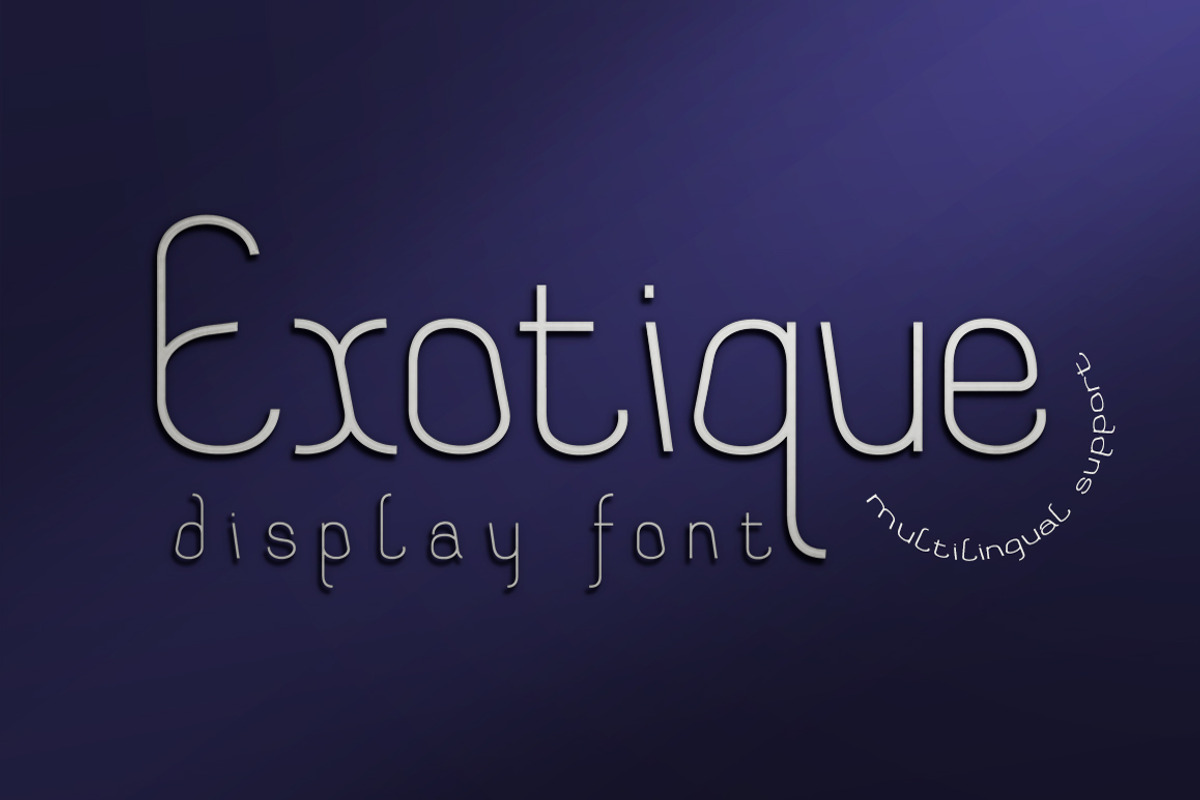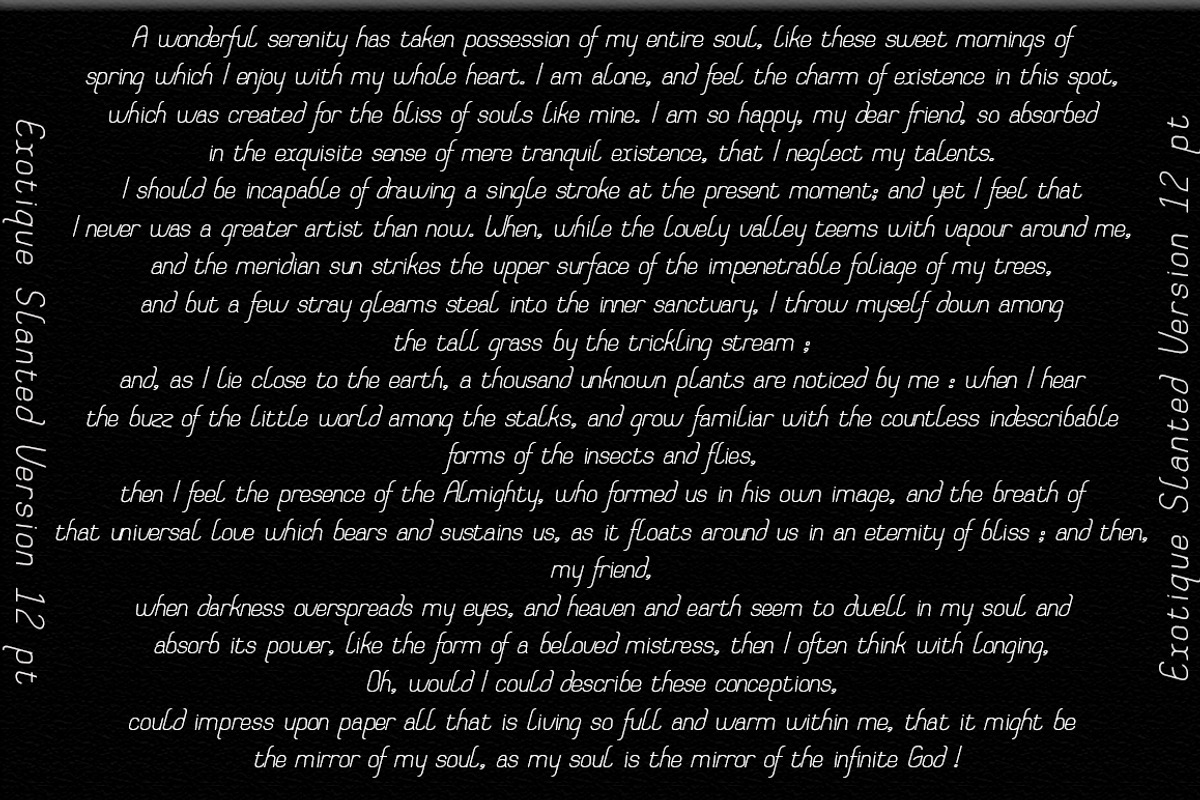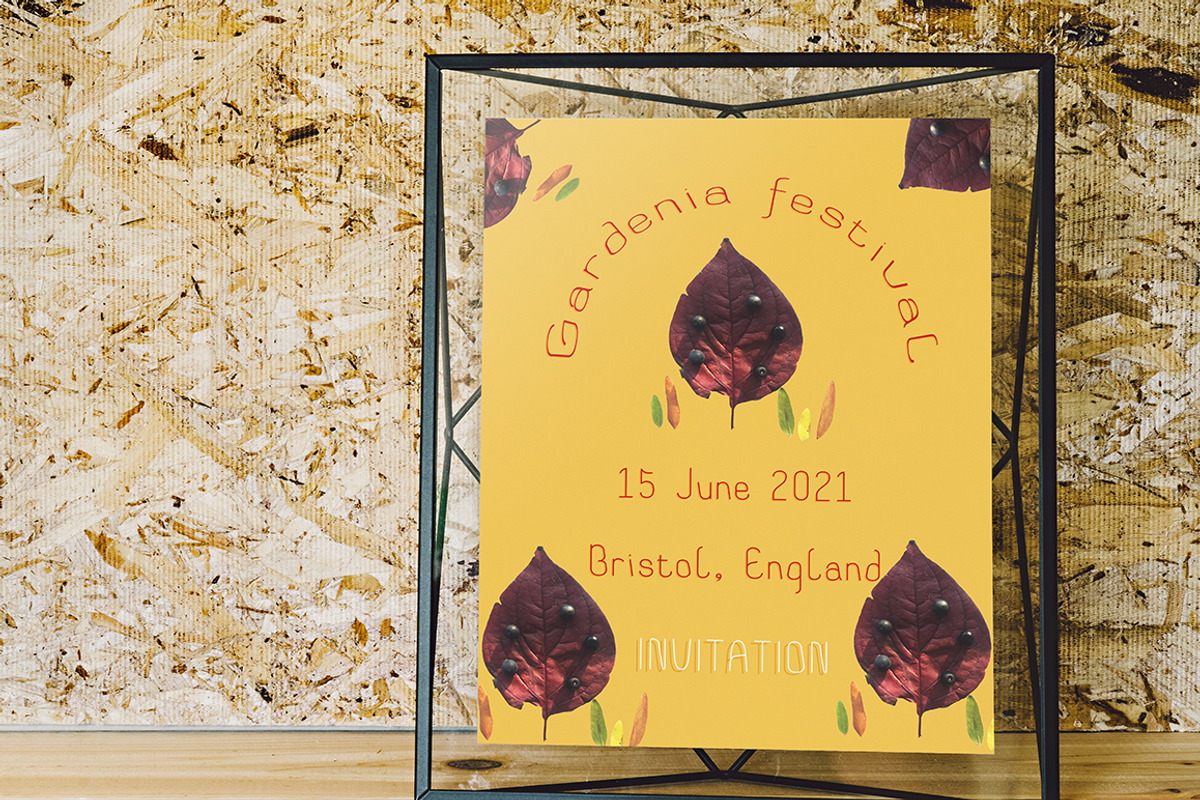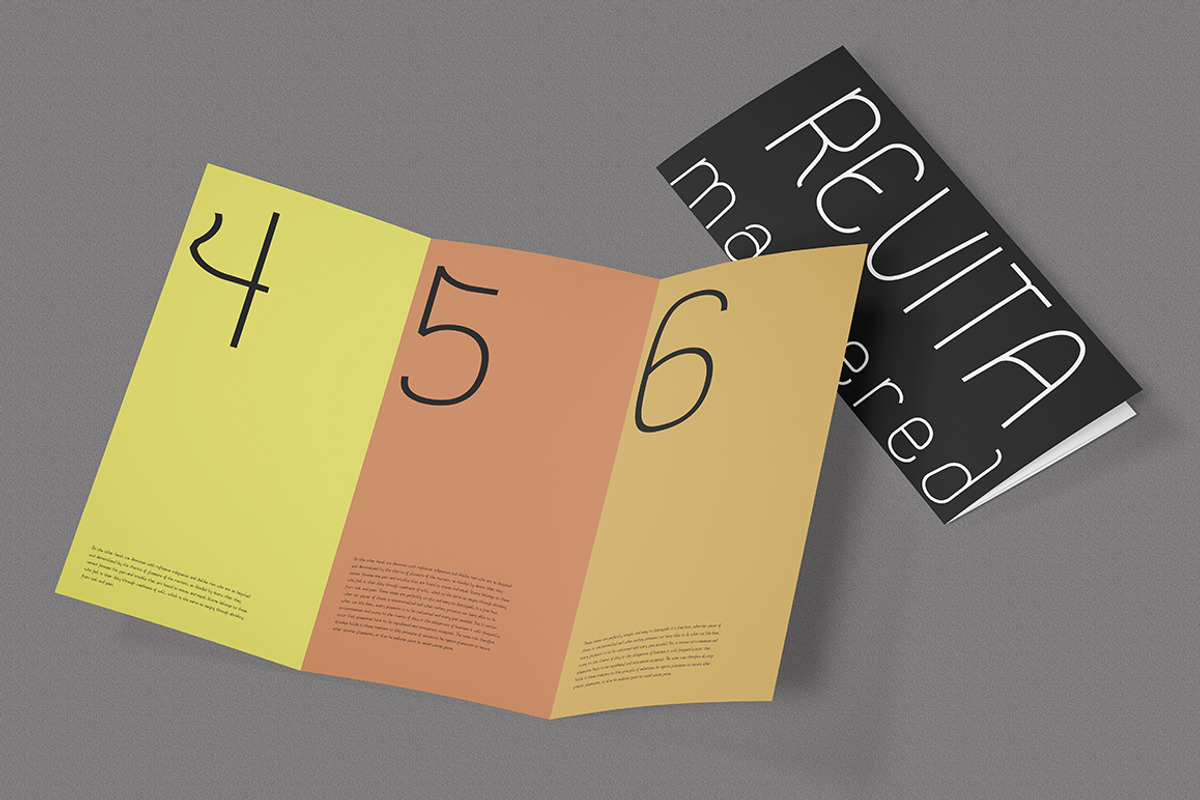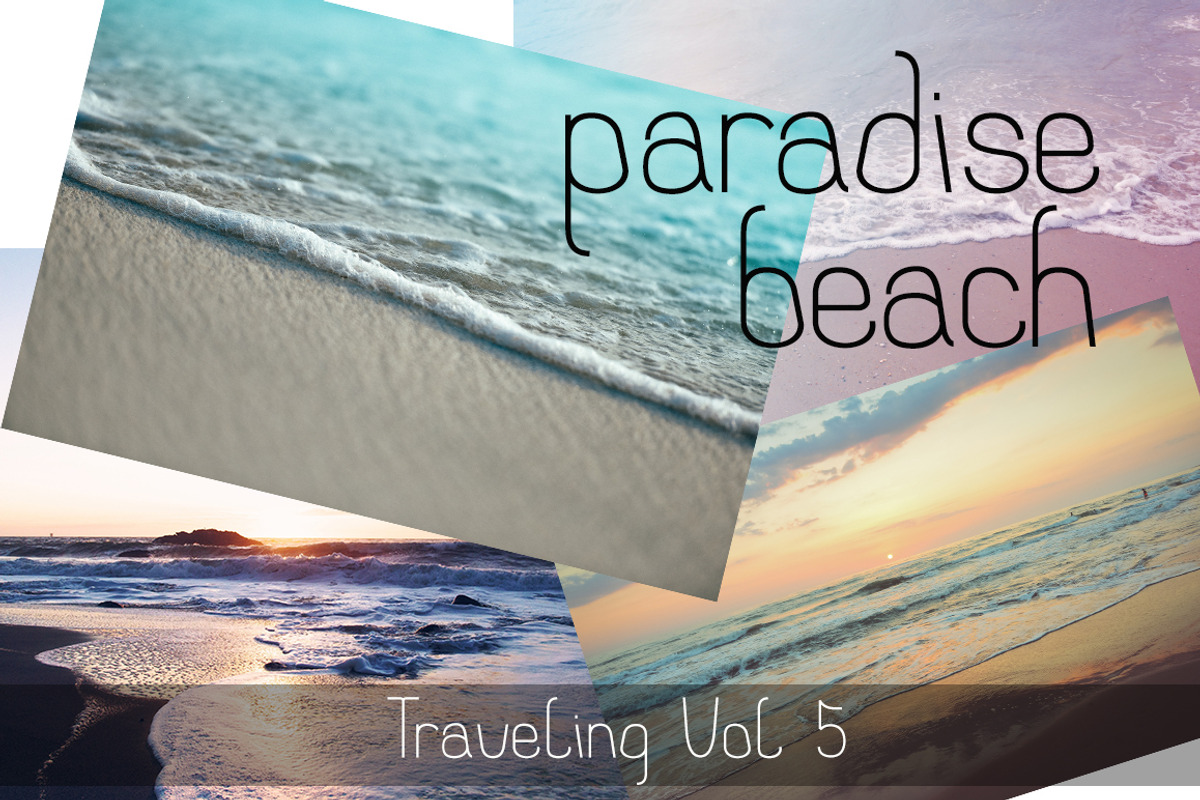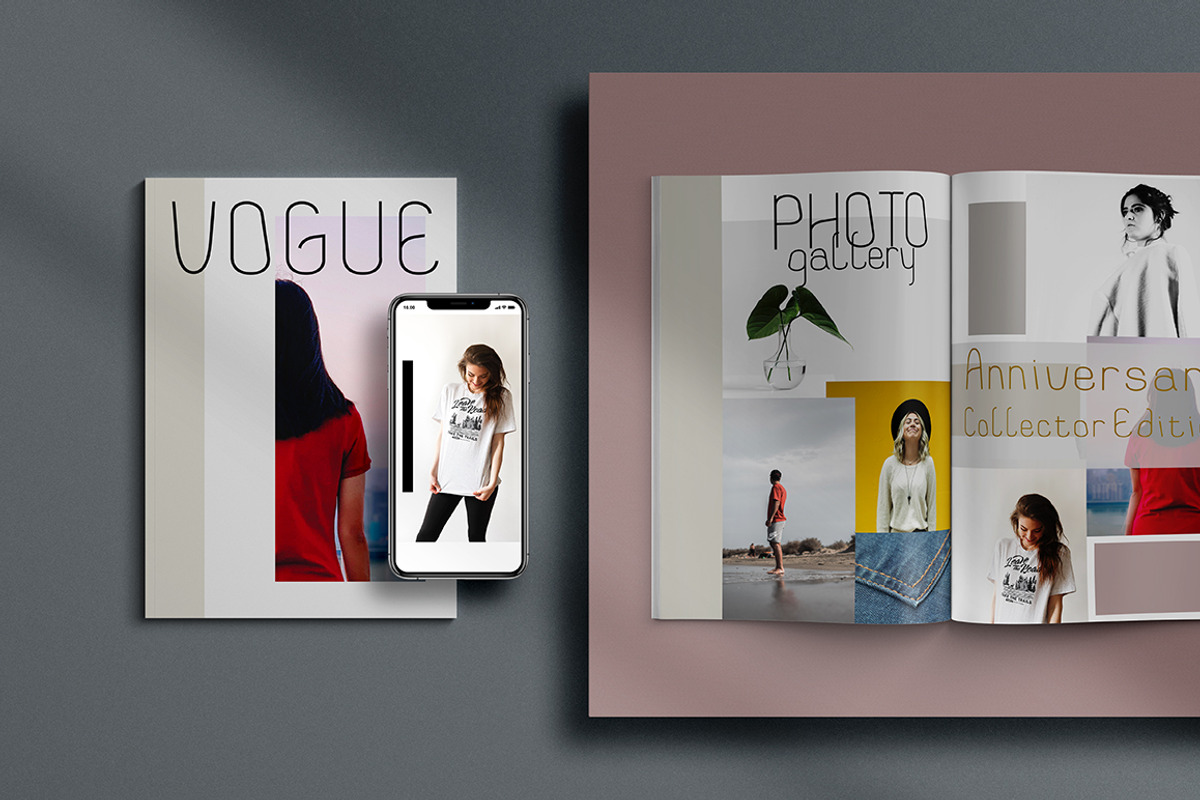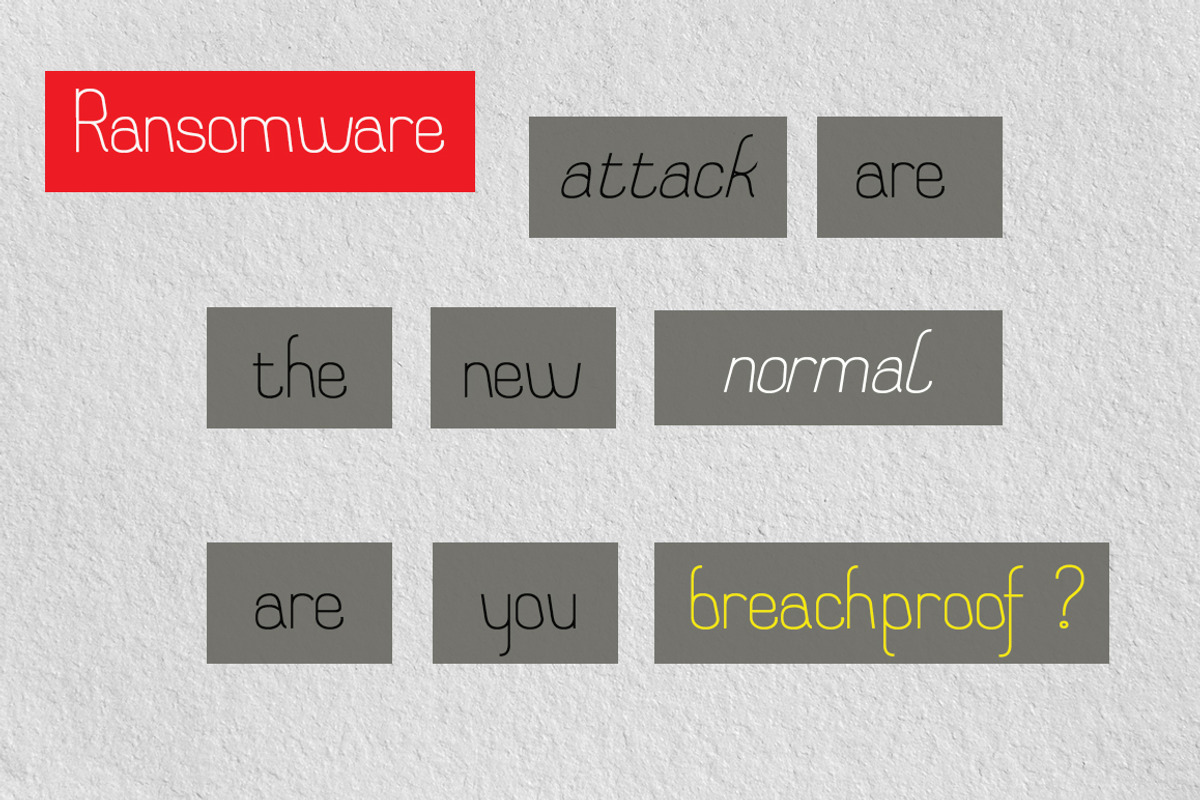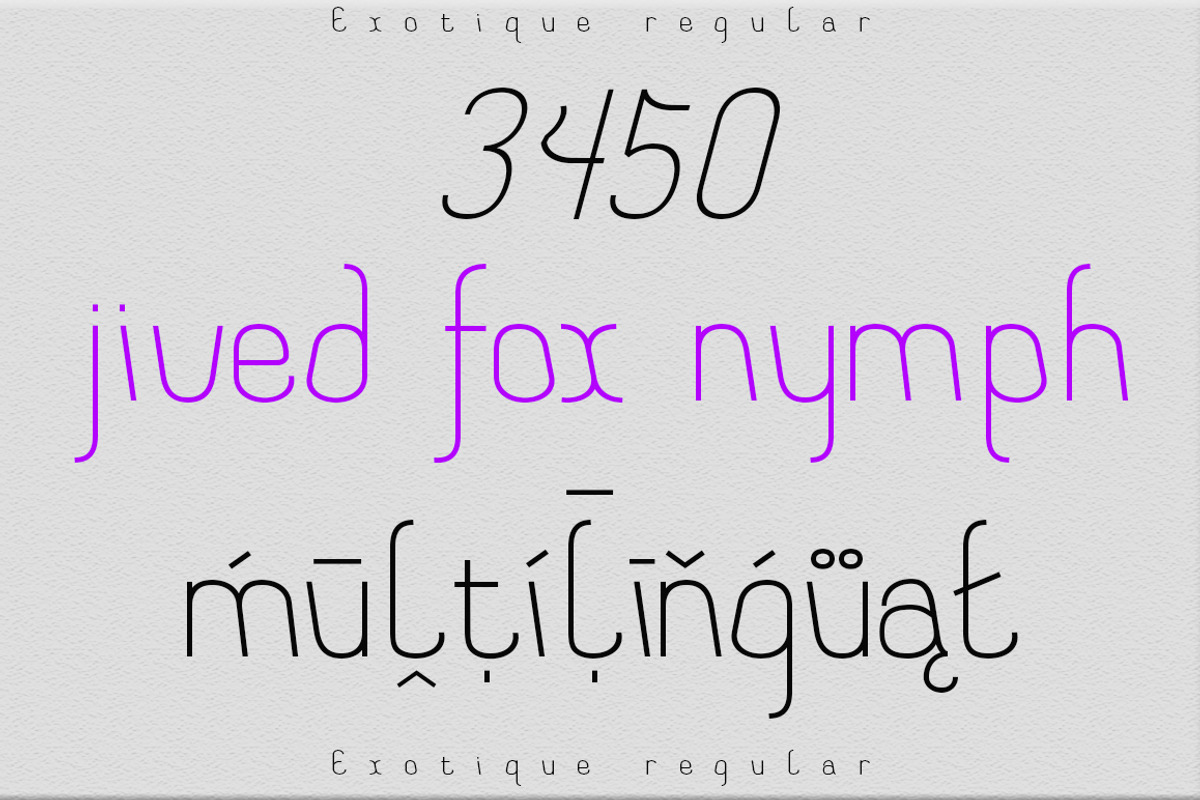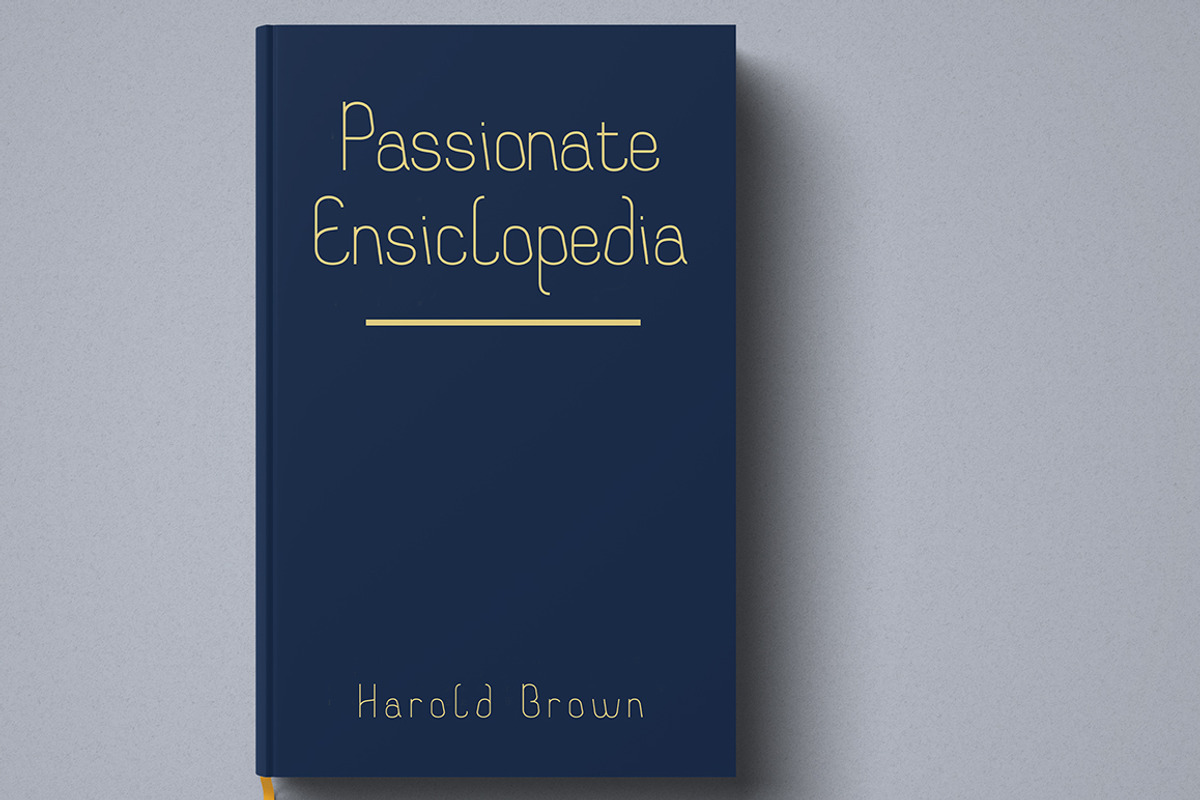
Exotique display font
The Exotique is unique, this display font and is equipped with multilingual to be able to handle most typographic applications ranging from branding to body copying with various weights and inherent readability.
will be perfect and look luxurious for many projects such as fashion, magazines, logos, branding, photography, invitations, quotes, blog headings, posters, advertisements, postcards, etc.